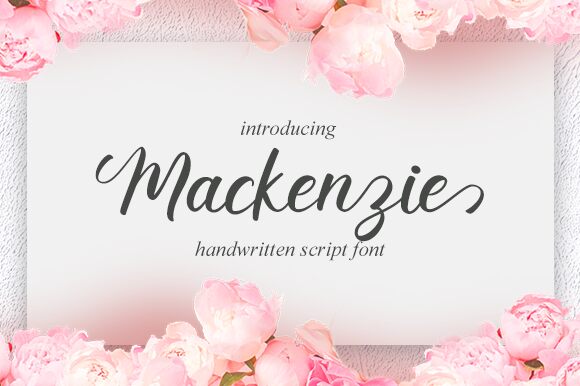
Mackenzie
Mackenzie, the beautiful handwritten font designed by Graphix Line Studio, is perfect for adding a touch of elegance to your projects. With its semi-light weight and flowing cursive style, this font is versatile and suitable for a variety of design projects. From wedding invitations to social media graphics, Mackenzie will add a personal and unique touch to your work. Use it for branding materials, packaging design or even for creating inspiring quotes. This font will make your work stand out with its sophisticated and timeless feel. Try Mackenzie today and take your designs to the next level!